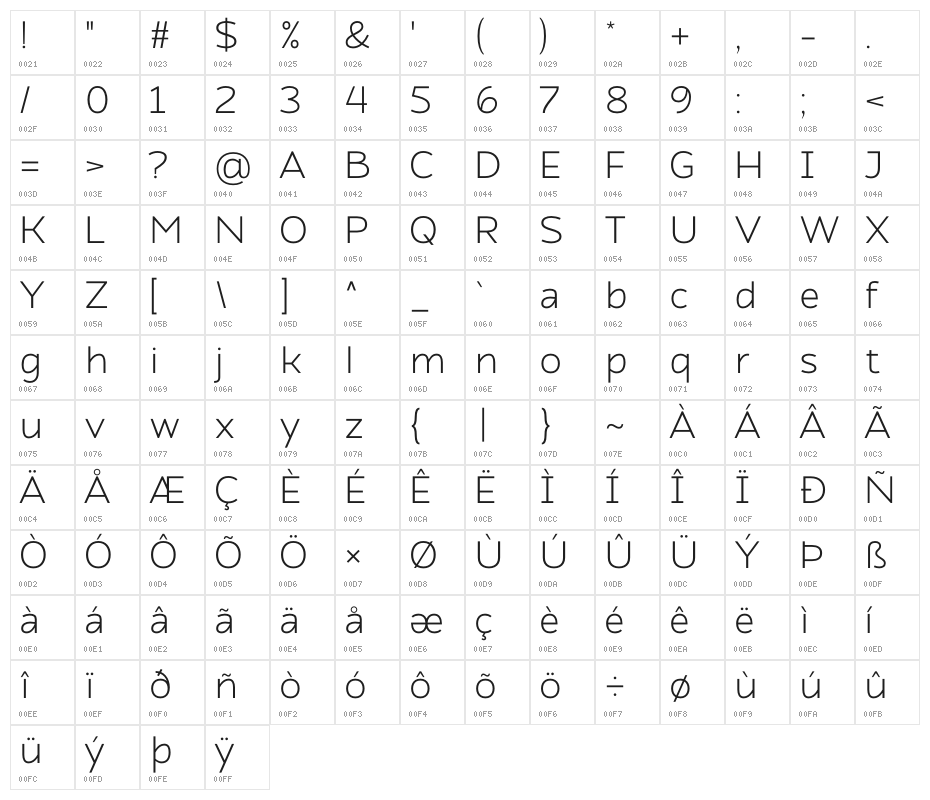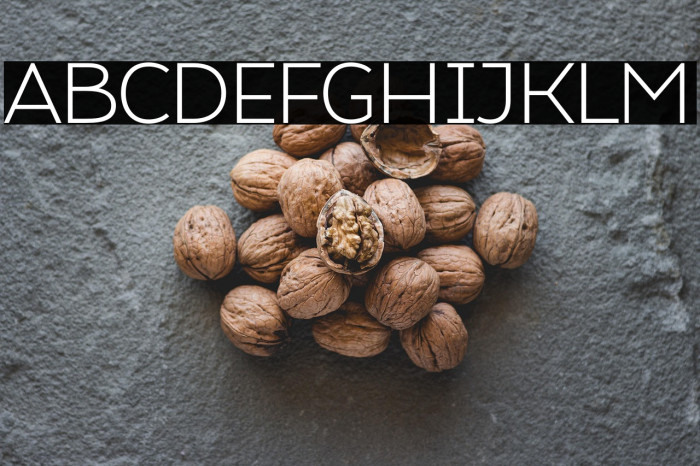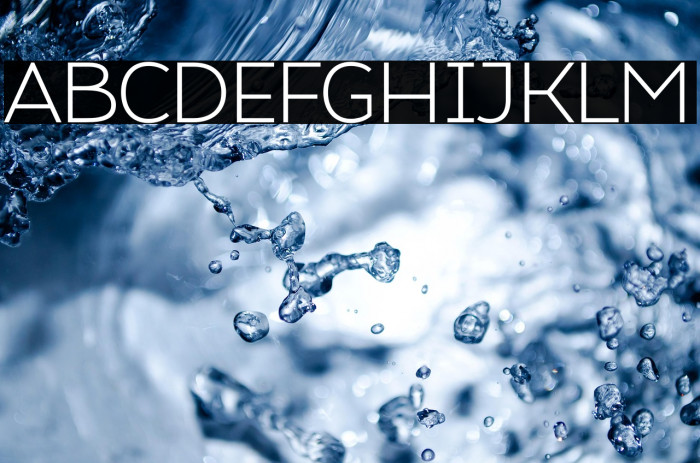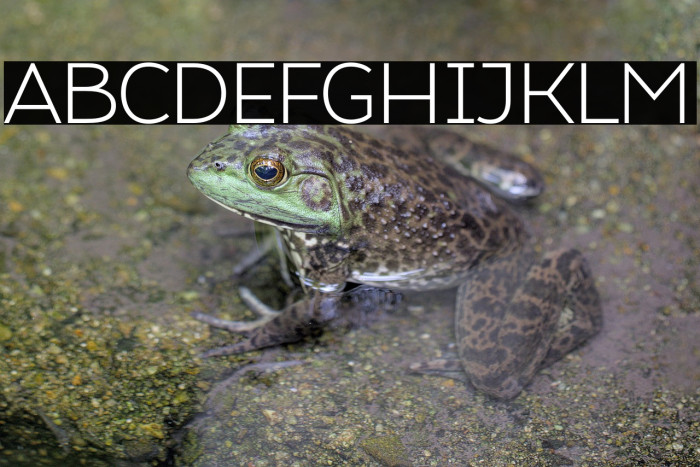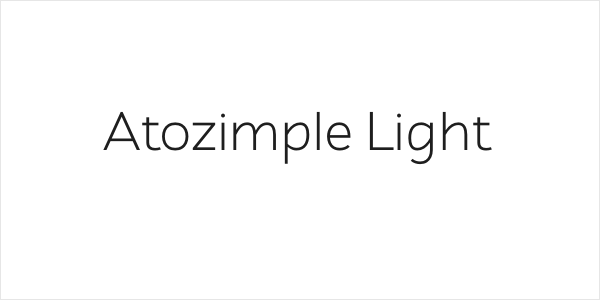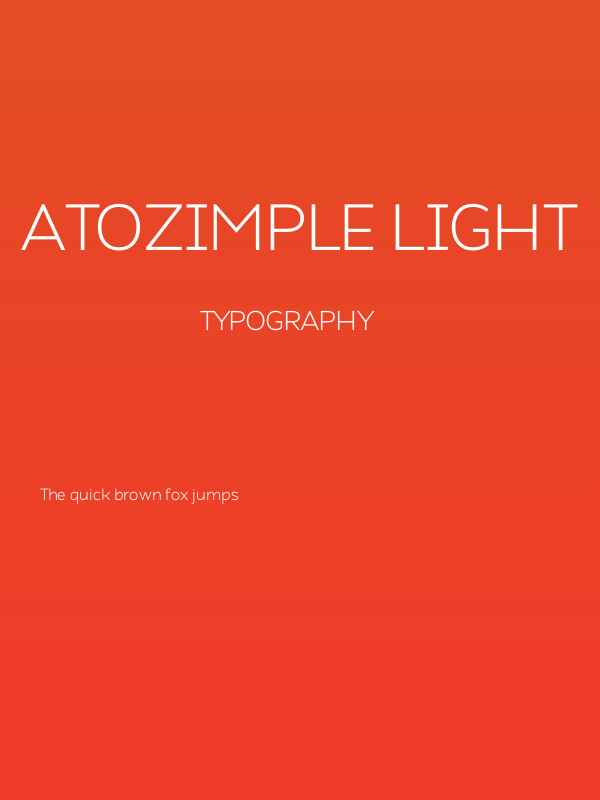
Atozimple Light Font
Atozimple Light Description
This font is a clean and modern sans-serif typeface characterized by its simplicity and readability. The letters are evenly spaced with a consistent stroke width, giving it a harmonious and balanced appearance. The uppercase and lowercase letters are well-proportioned, and the numerals are clear and distinct. Special characters are designed to complement the overall aesthetic, making it versatile for various applications. The font's minimalistic design ensures it remains legible at different sizes, making it suitable for both digital and print media.